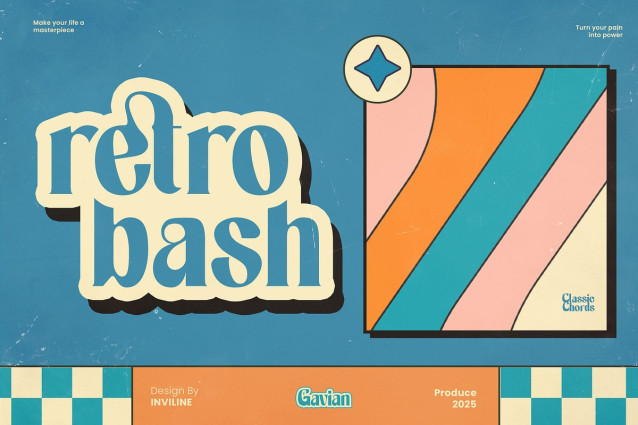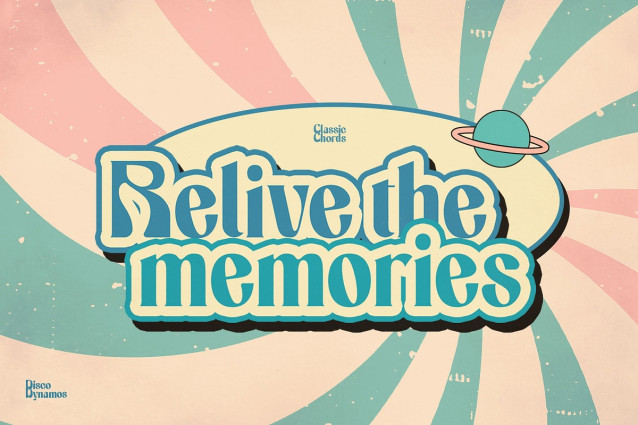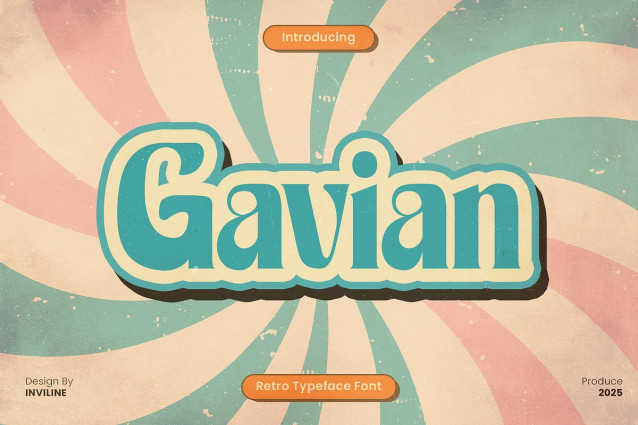
Gavian Font
Gavian Font – a stylish retro font! This vintage-inspired font is perfect for adding a nostalgic touch to logos, posters and branding. Download now and unleash your inner 70s! Perfect for retro projects that need a bit of a vintage, bold feel.